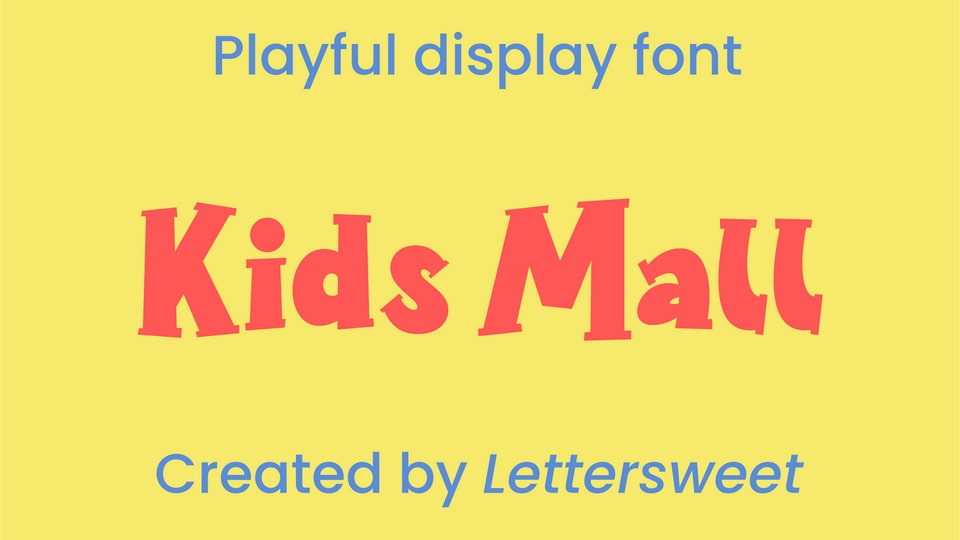
Download Kids Mall font, a kid typeface with extrude, inspired by the joyful world of colorful children. The unique characteristics make it suitable for various purposes.